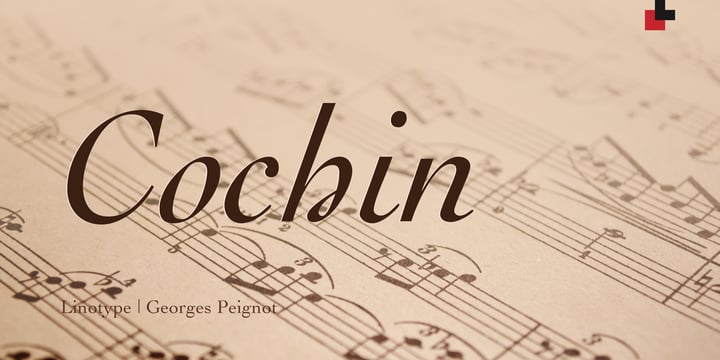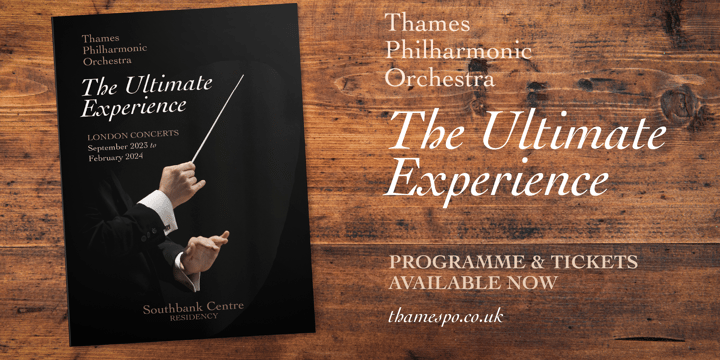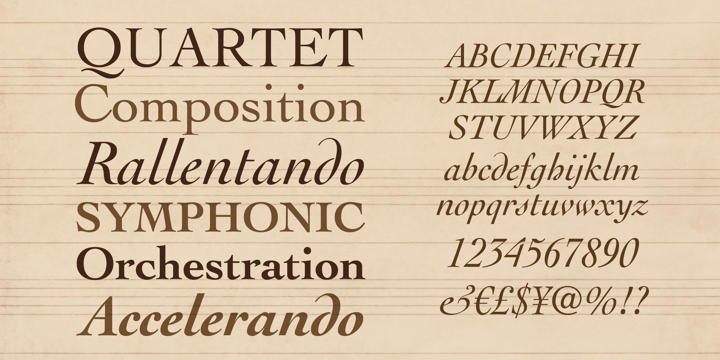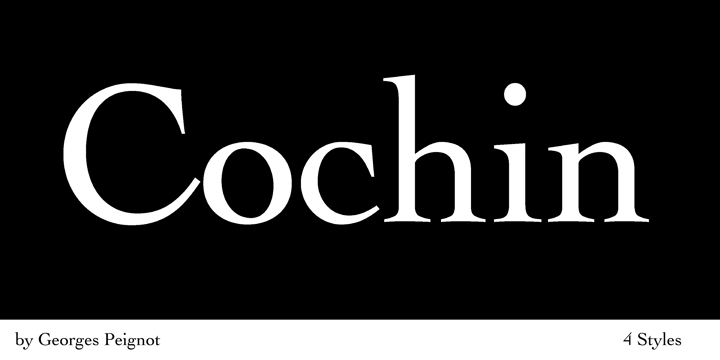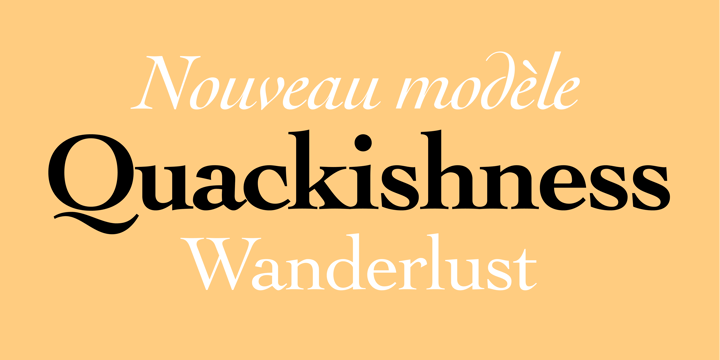
Georges Peignot
The French designer Georges Peignot (1872–1914) created the fonts (1914) and (1912). Georges Peignot designed Cochin™ based on copper engravings of the 18th century and Charles Malin cut the typeface in 1912 for the Paris foundry Deberny Peignot. The font is named after the French engraver Charles Nicolas Cochin (1715–1790) although its style had little to do with that of the copper artist's. The font displays a curious mix of style elements and could be placed as a part of the typographical Neorenaissance movement. Cochin is especially large and wide and was especially popular at the beginning of the 20th century. The font Nicolas Cochin is based on copper engravings of the 18th century; Charles Malin cut the typeface in 1912 for the Paris foundry Deberny Peignot. Nicholas Cochin is a freer variation of the font Cochin, a bit more balanced and elegant. Cochin and Nicolas Cochin are included in the Linotype Library. Cochin is a trademark of Heidelberger Druckmaschinen AG, which may be registered in certain jurisdictions, exclusively licensed through Linotype GmbH, a wholly owned subsidiary of Heidelberger Druckmaschinen AG. If you are interested in more information about the Peignot family, please take a look at http://www.cliquez.fr/froissart. Here you will find a book about this issue.